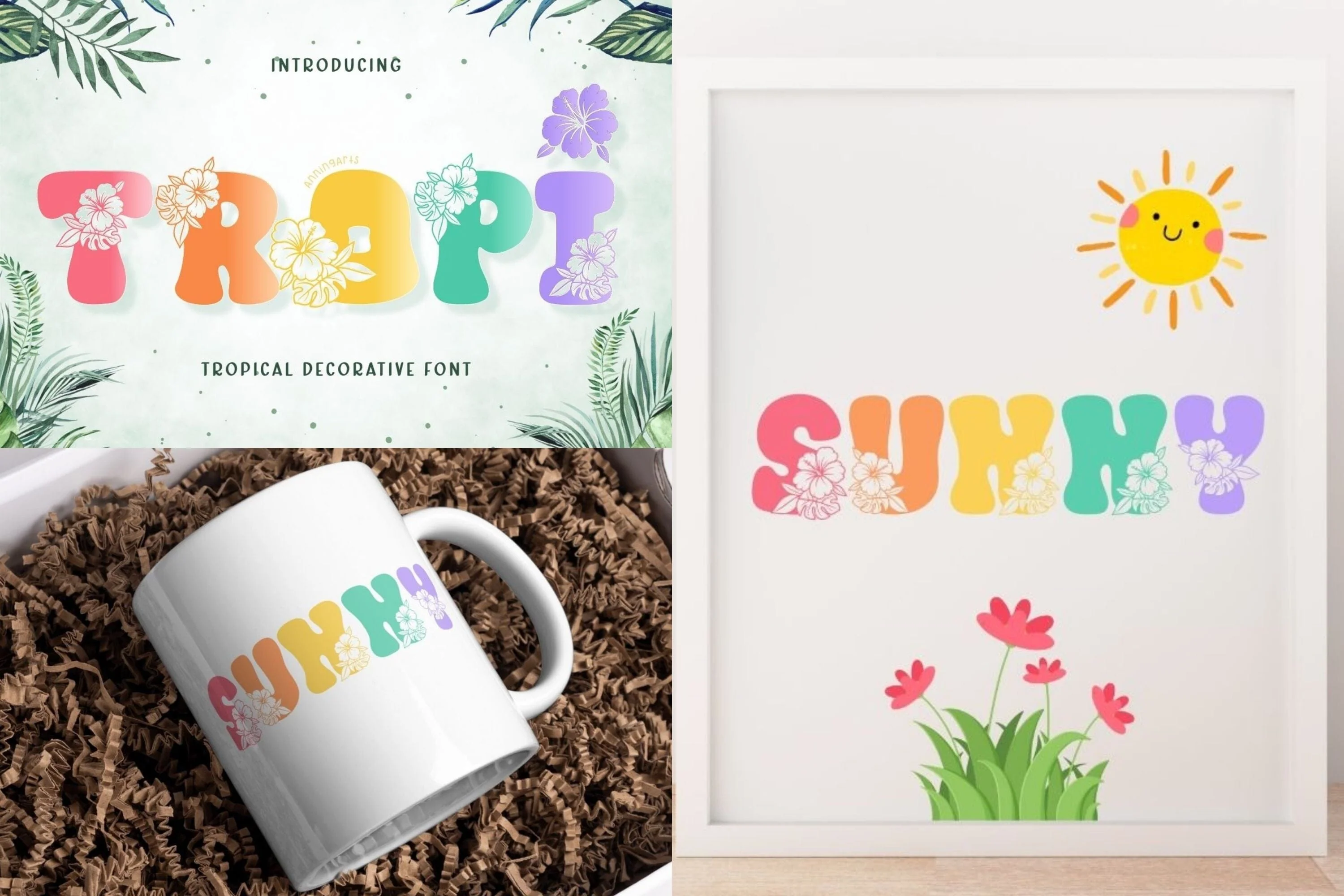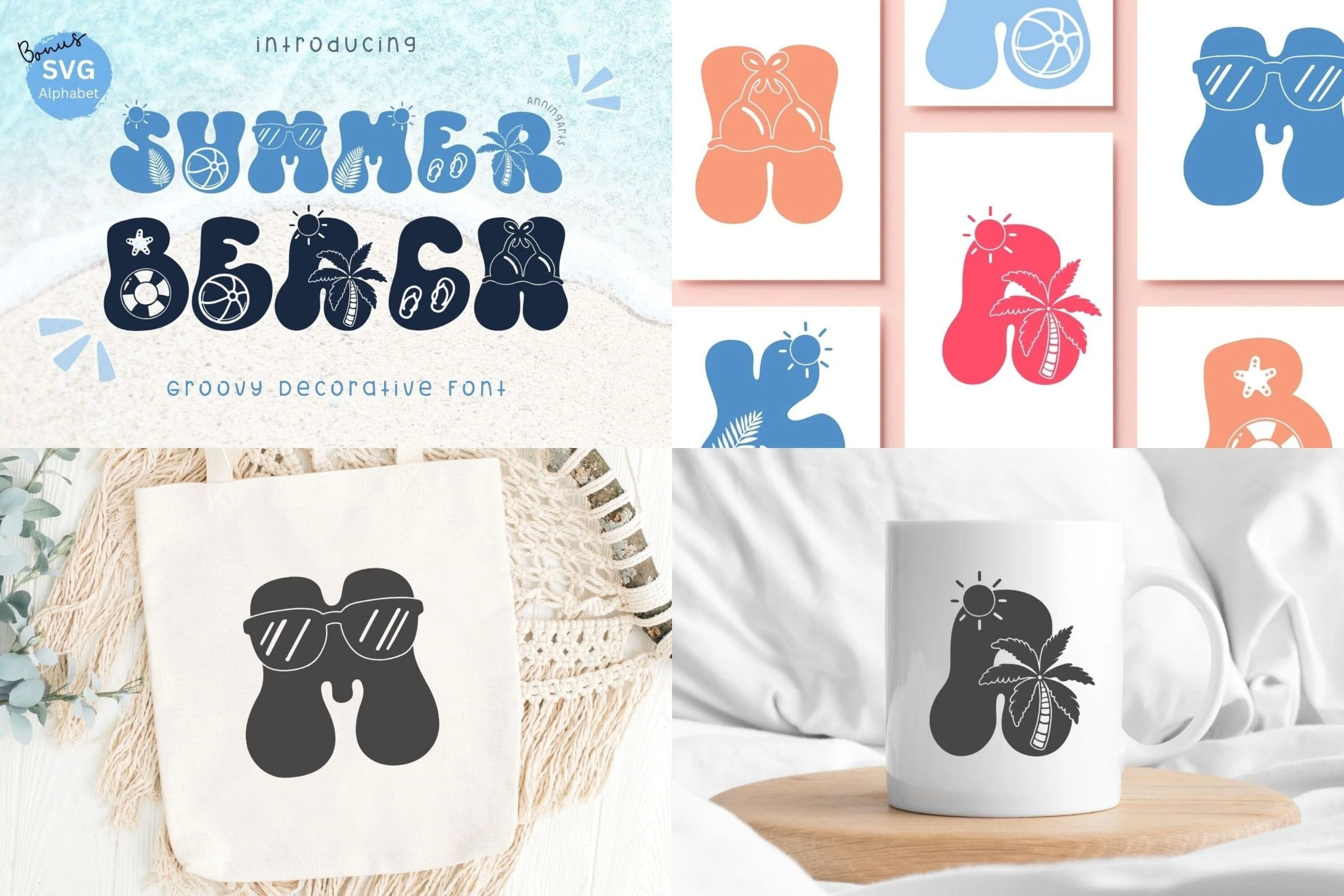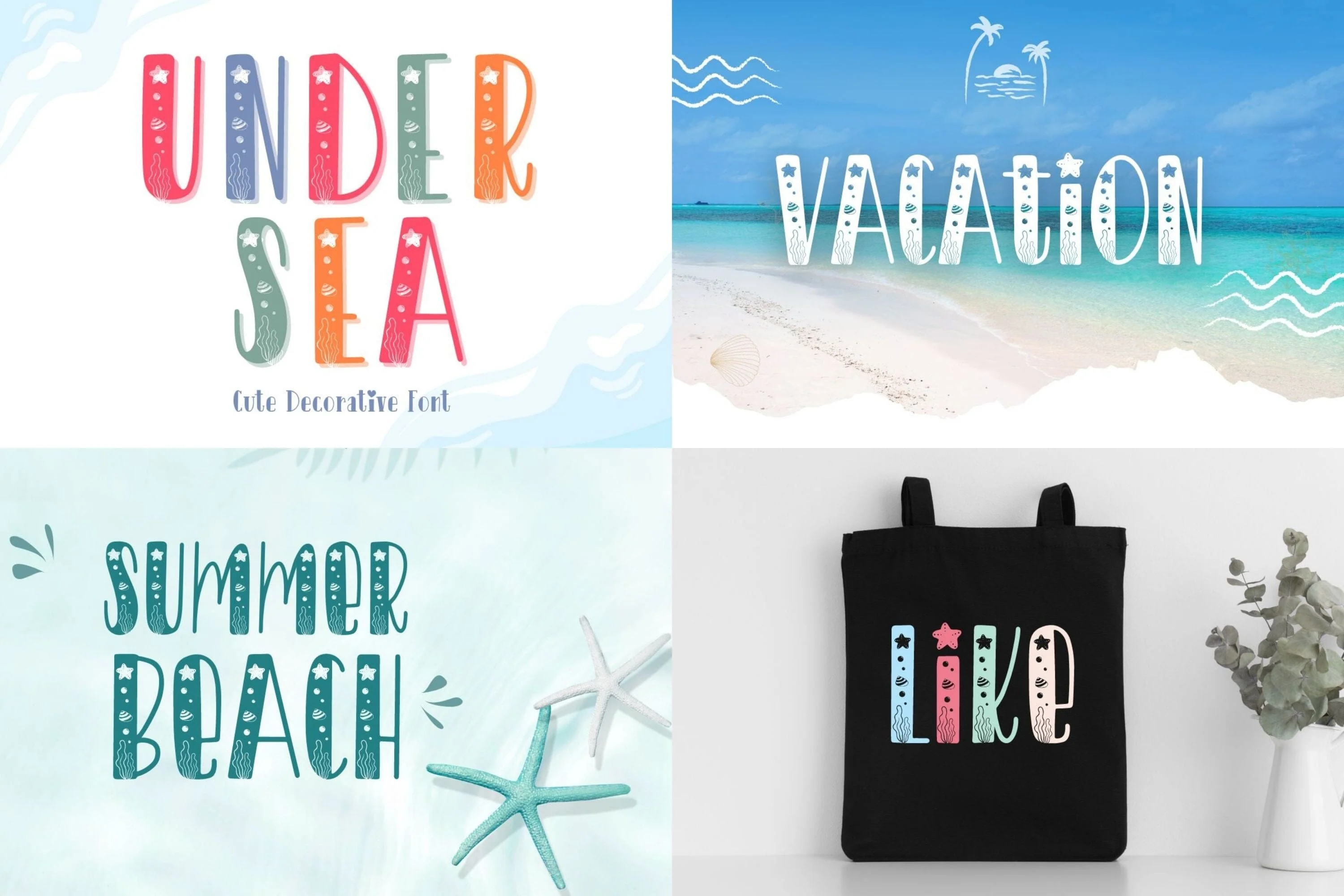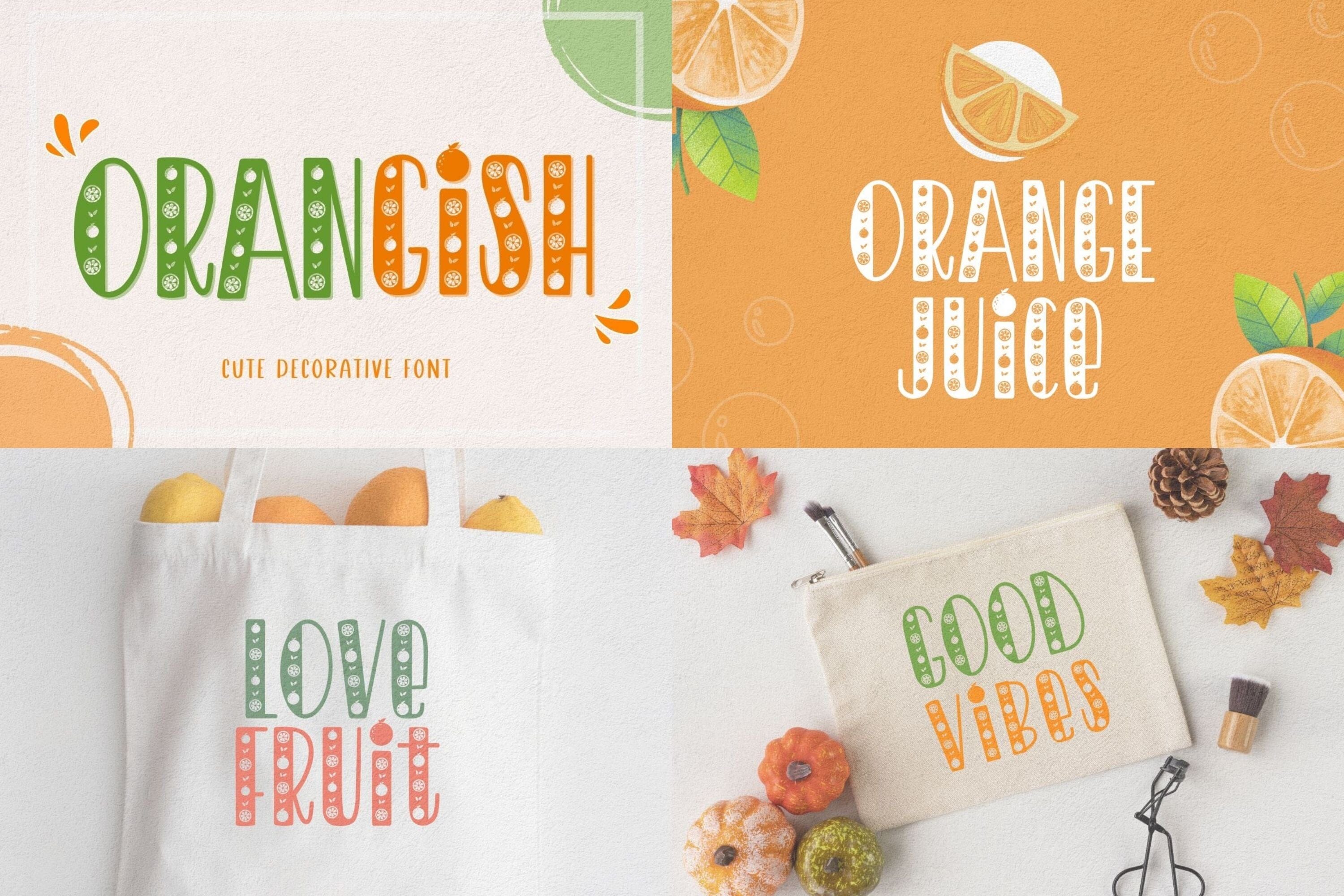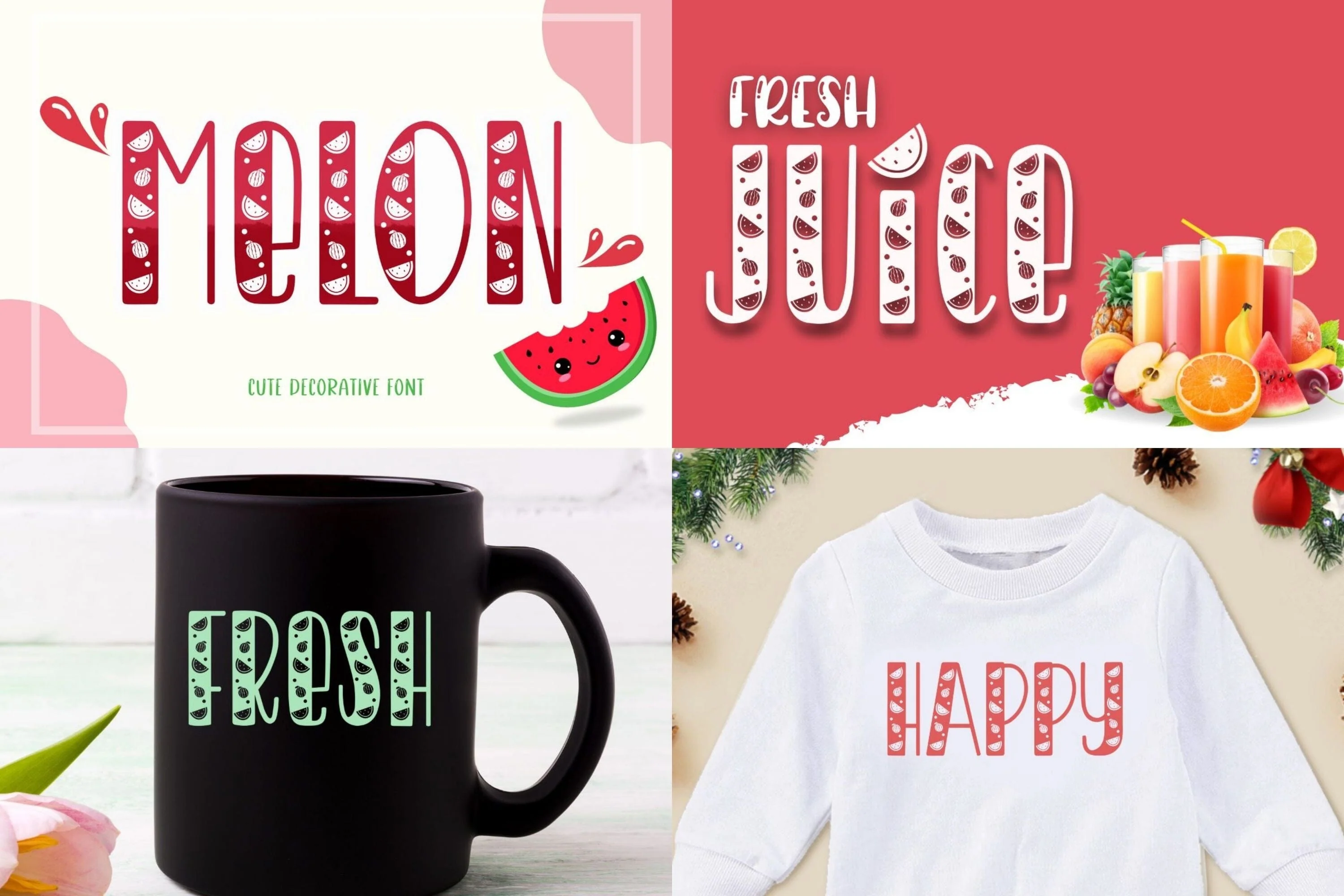
Special Summer Font Bundle - 22 Cute Display Fonts
Get ready for summer fun with this Special Summer Font Bundle! Featuring 22 vibrant and playful fonts perfect for all your seasonal projects. From retro beach vibes to fruity cut-out styles, these display fonts are ideal for Cricut crafts, printable decor, party invitations, teacher resources, and more.
This bundle includes a variety of decorative fonts such as tropical, bubble, cartoon, floral, and watermelon themes – all in one fun-packed set. Perfect for creative makers, summer-themed products, and digital designs.
Get ready for summer fun with this Special Summer Font Bundle! Featuring 22 vibrant and playful fonts perfect for all your seasonal projects. From retro beach vibes to fruity cut-out styles, these display fonts are ideal for Cricut crafts, printable decor, party invitations, teacher resources, and more.
This bundle includes a variety of decorative fonts such as tropical, bubble, cartoon, floral, and watermelon themes – all in one fun-packed set. Perfect for creative makers, summer-themed products, and digital designs.